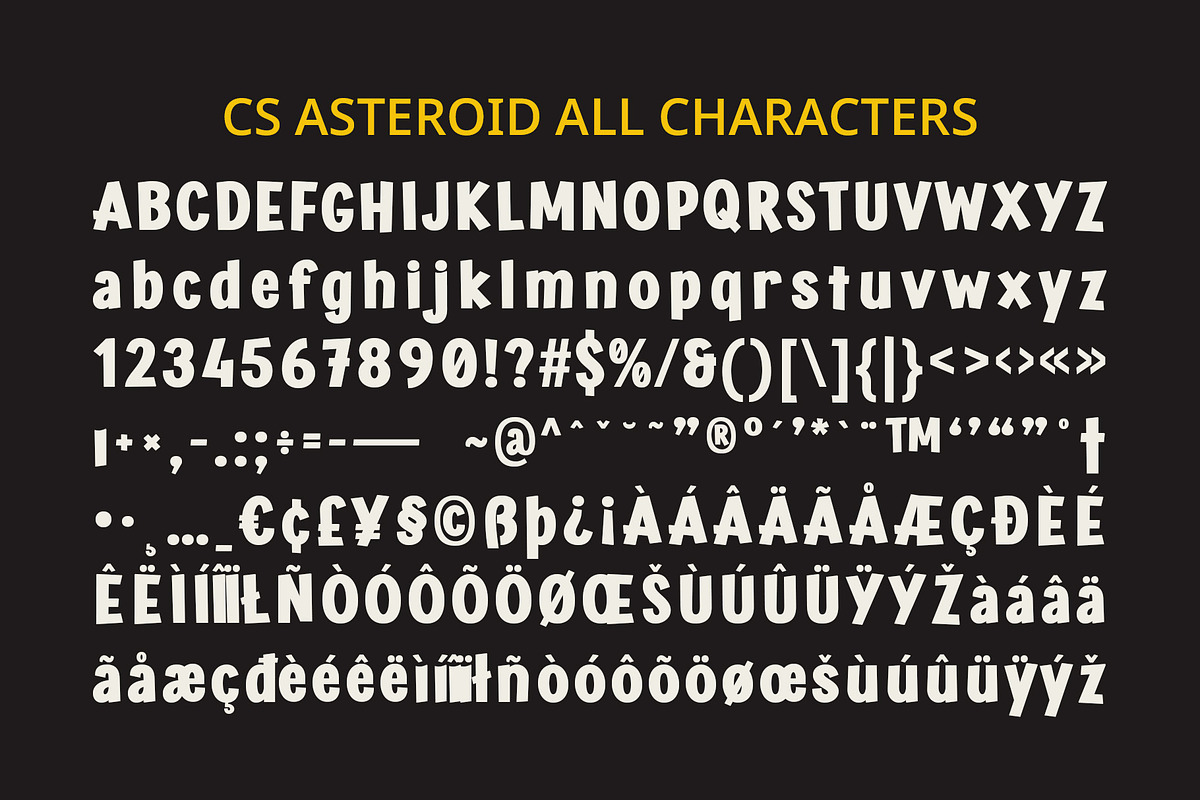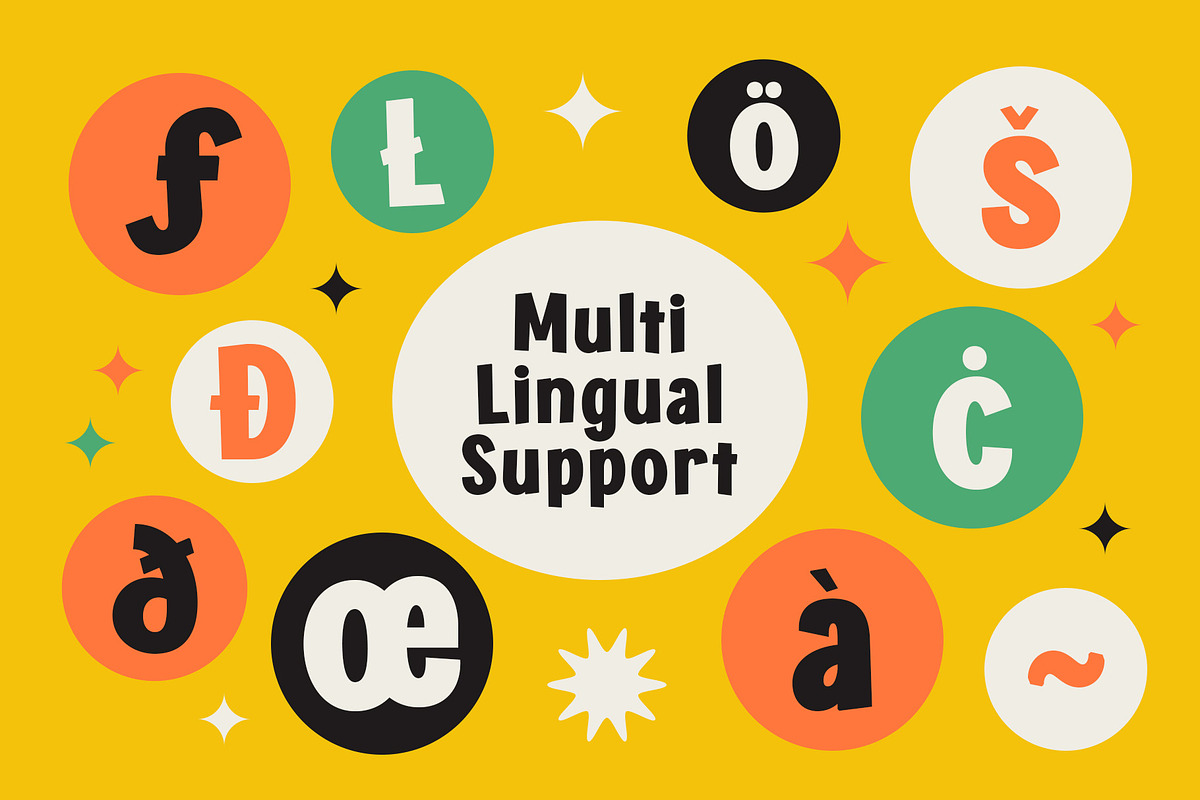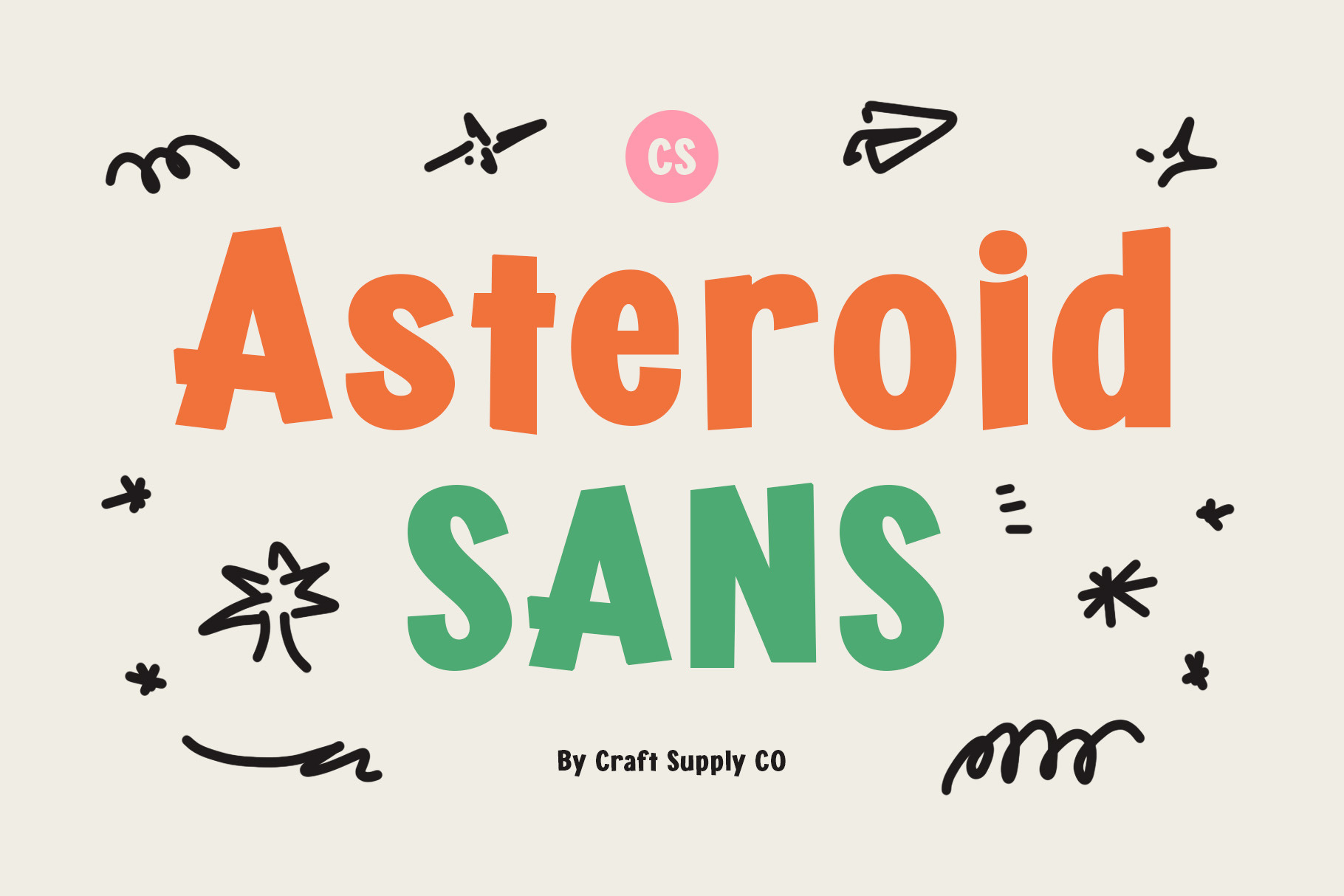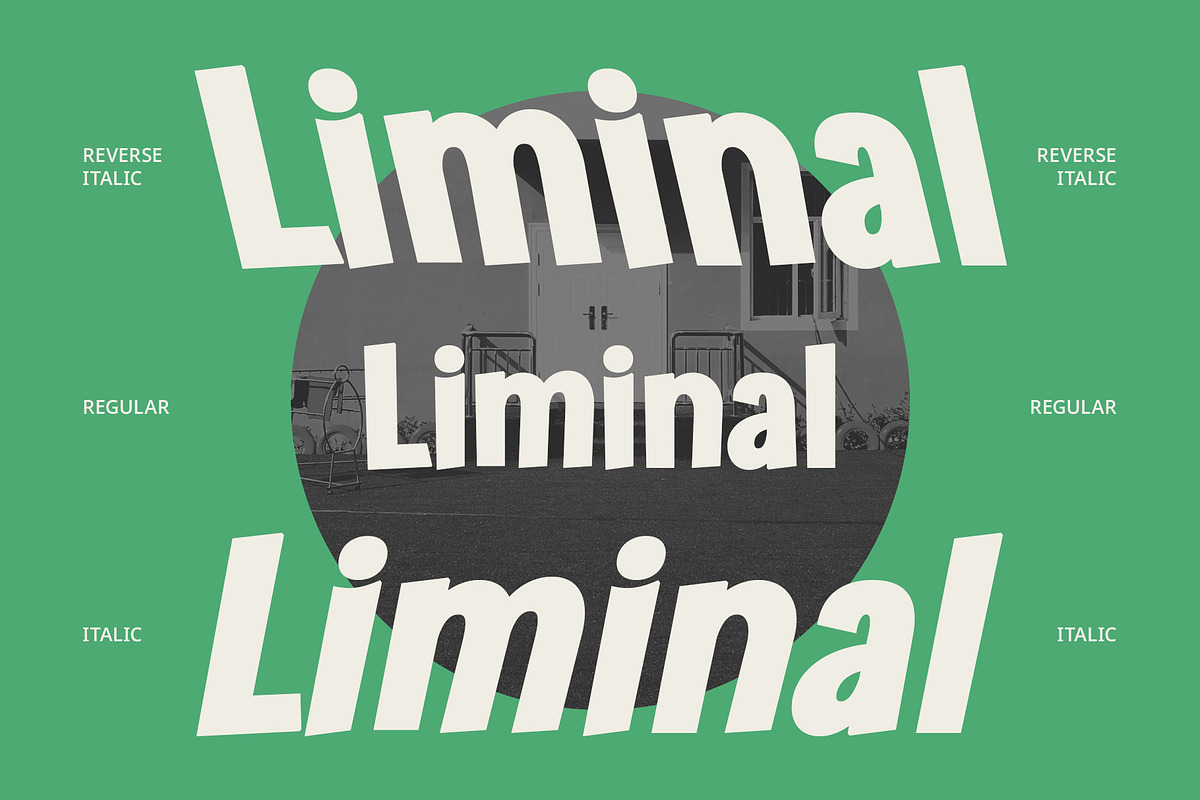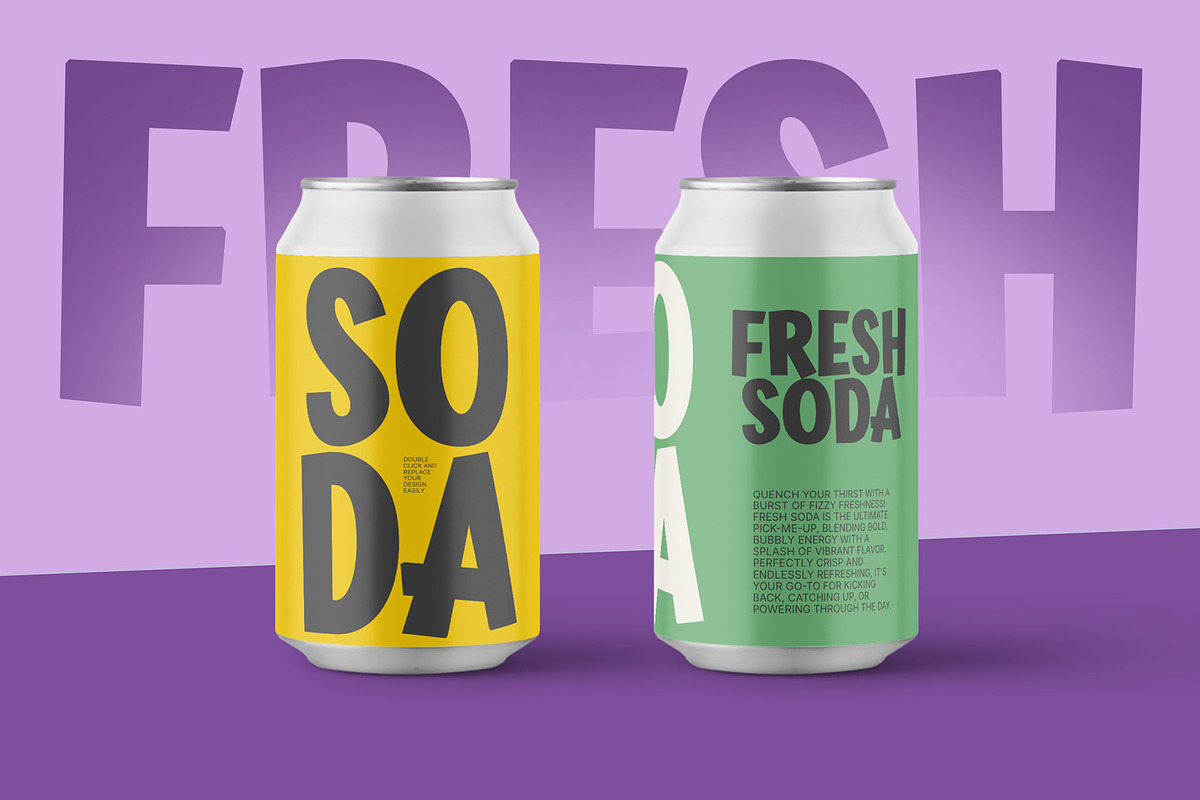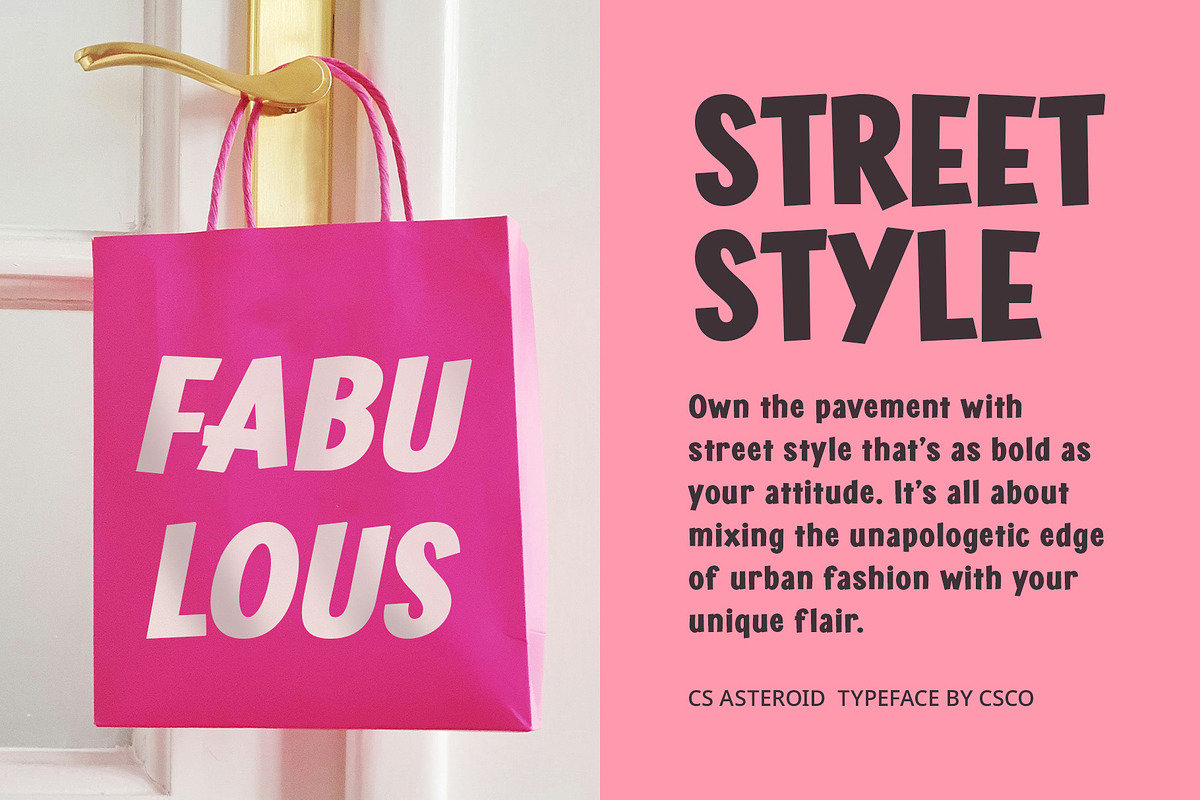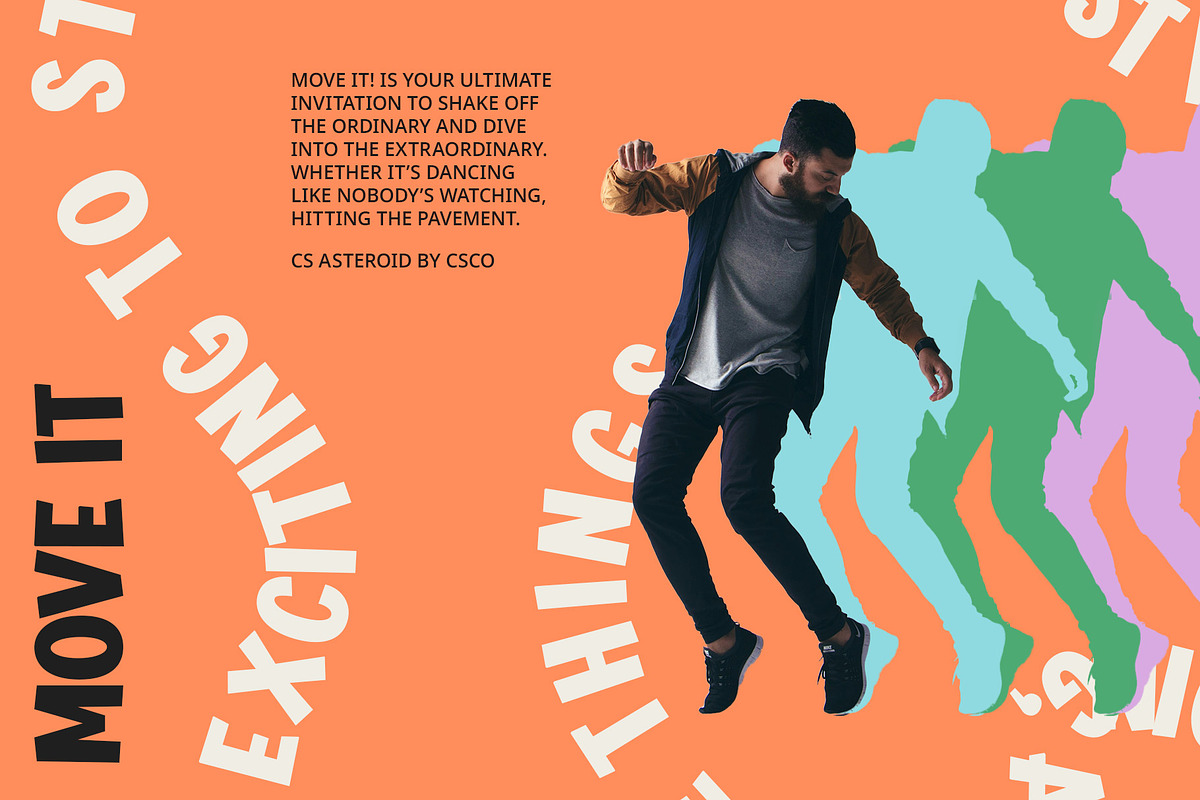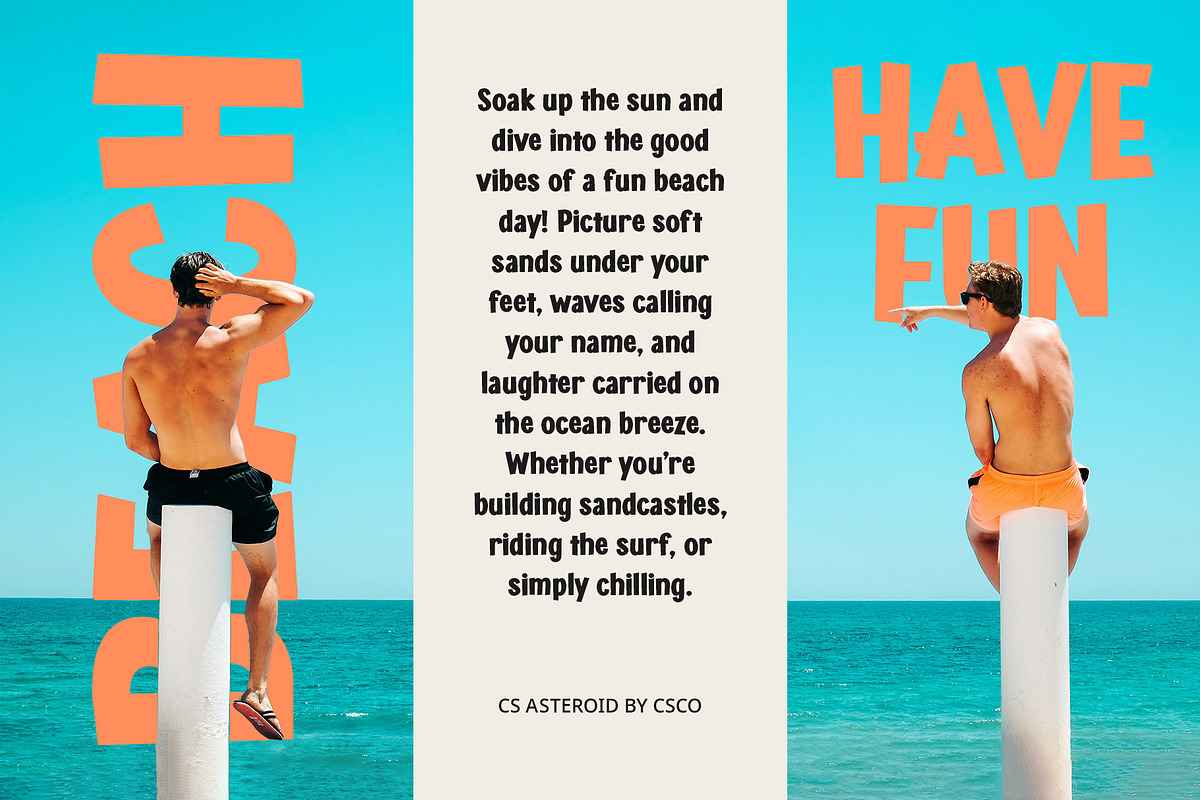
CS Asteroid – Fun Font
CS Asteroid – Fun Font: Where Playful Meets Professional
Bold Geometry with a Twist CS Asteroid brings a fresh take on modern sans serif design by combining bold geometric shapes with playful asymmetric details. Its thick strokes and rounded terminals create a strong presence, while subtle quirks in the letterforms add a dash of whimsy to every character.
Dynamic Counter Spaces Experience the perfect balance of form and function with CS Asteroid’s expertly crafted counter spaces. The generous openings within each letter enhance readability while contributing to the font’s energetic and contemporary feel, ensuring your message remains clear even at a glance.
Friendly Professional Aesthetics CS Asteroid strikes an ideal balance between professional sophistication and approachable charm. Its clean geometric foundation provides a modern, professional base, while its playful elements infuse designs with warmth and personality, making it perfect for brands that want to appear both credible and friendly.
Versatile Impact From headlines to branding projects, CS Asteroid delivers outstanding versatility. Its bold construction ensures excellent visibility across various media, while its funky character makes it particularly effective for youth-oriented brands, creative agencies, entertainment, and any project that needs to combine professionalism with a sense of fun. Whether you’re designing for digital displays, print materials, or brand identity, CS Asteroid provides the perfect blend of impact and personality.